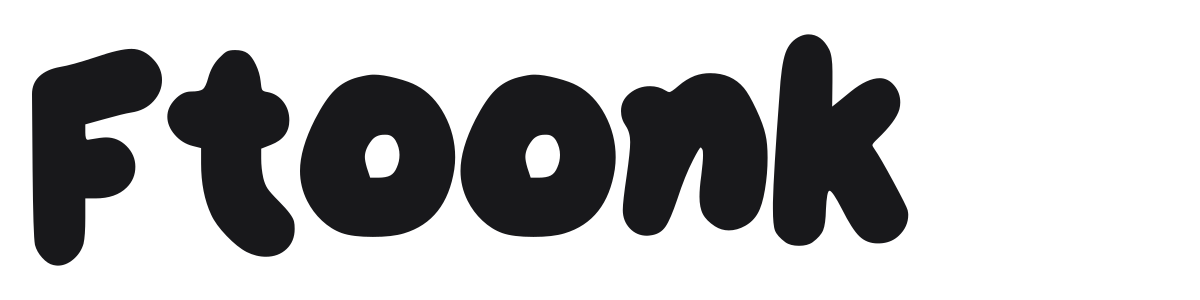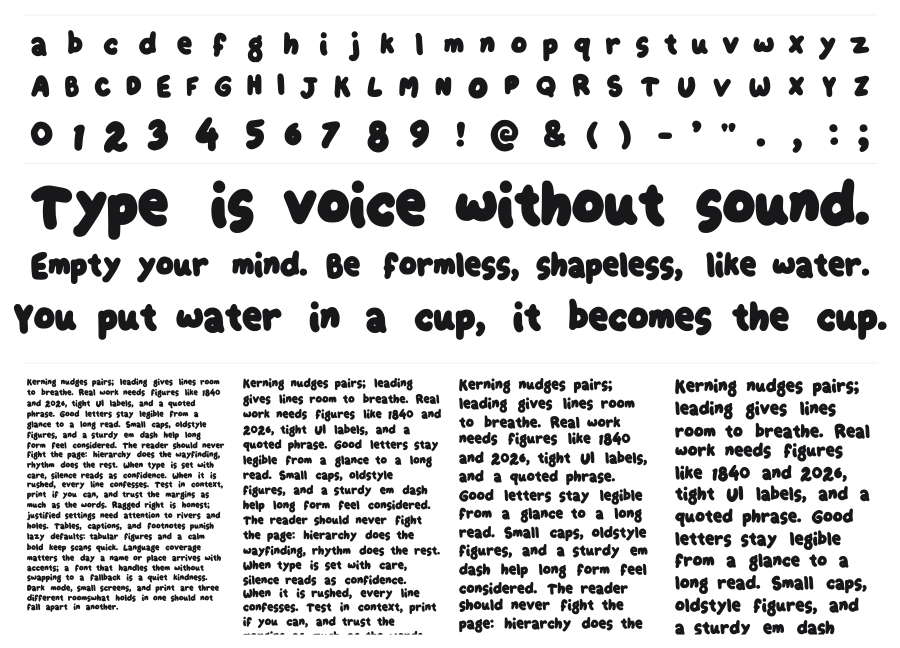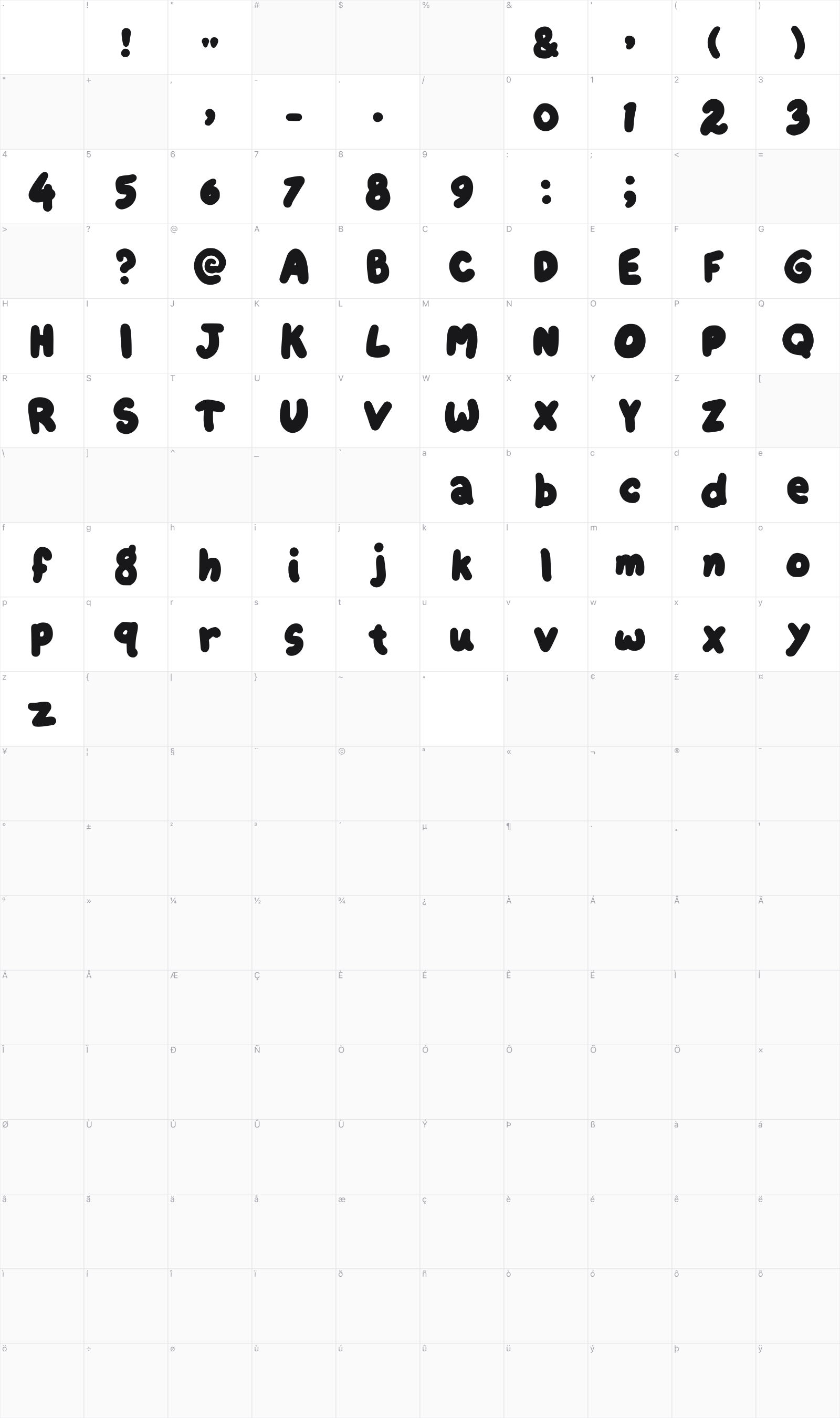
Ftoonk
Ftoonk is a heavy, bubbly display font designed to replicate the visual sensation of a dodgeball smacking someone in the face. Every character is inflated with rounded terminals and a cartoonish bulk that demands attention at large sizes. It belongs on sound effects, kids' packaging, game titles, and anywhere energy matters more than refinement.